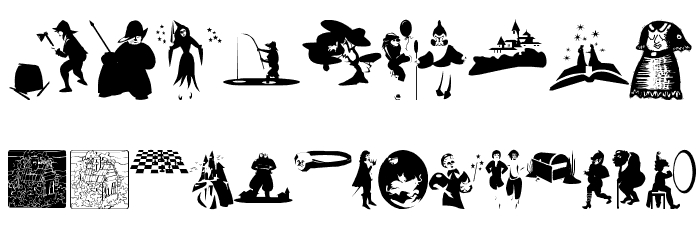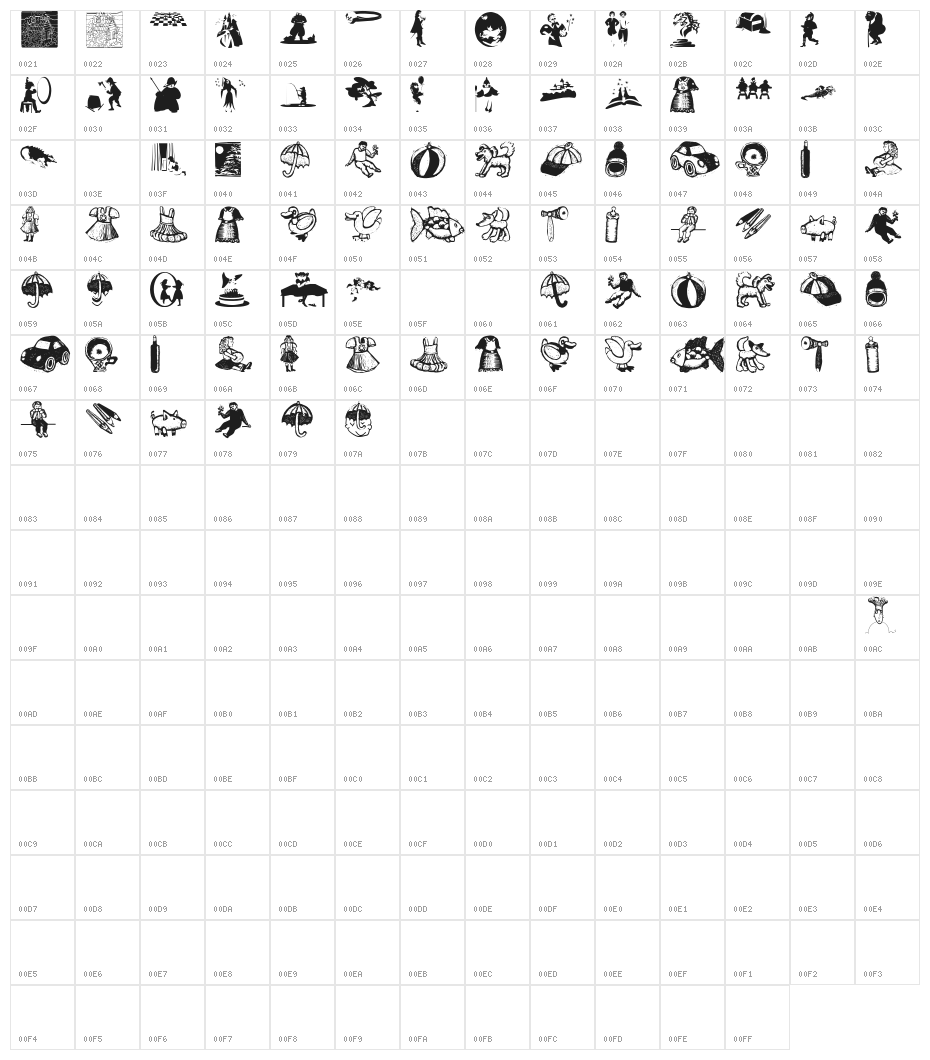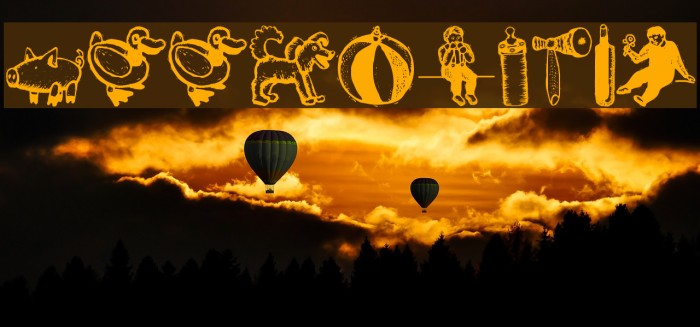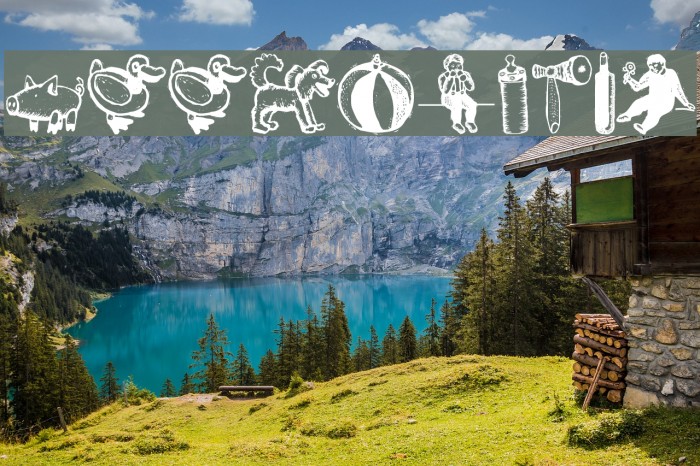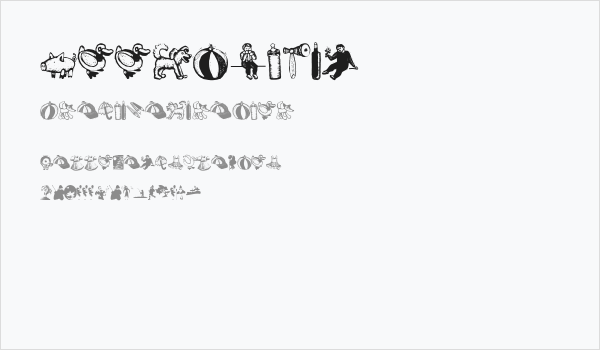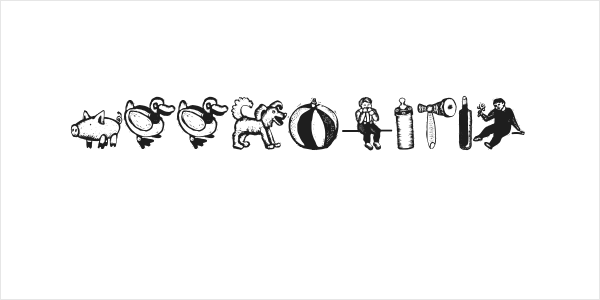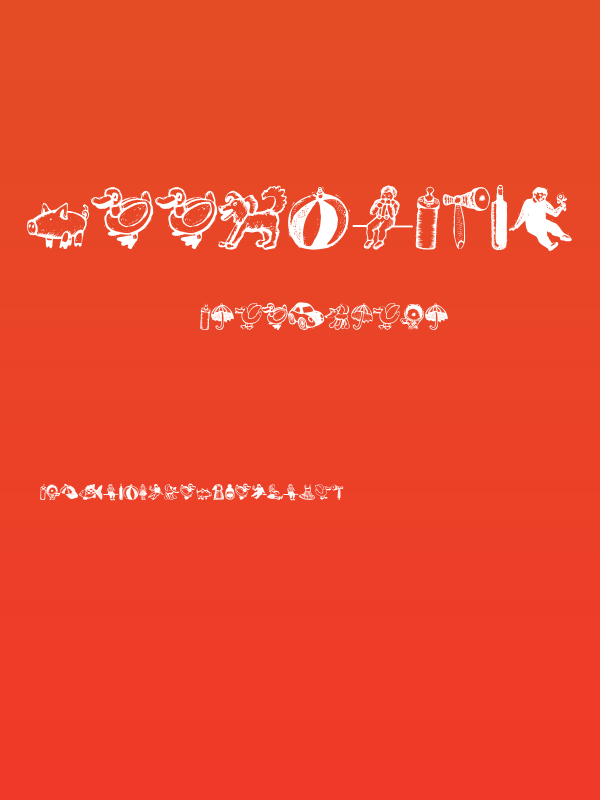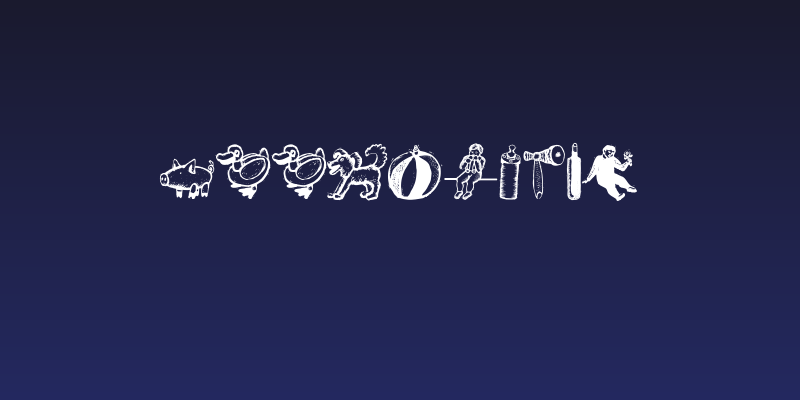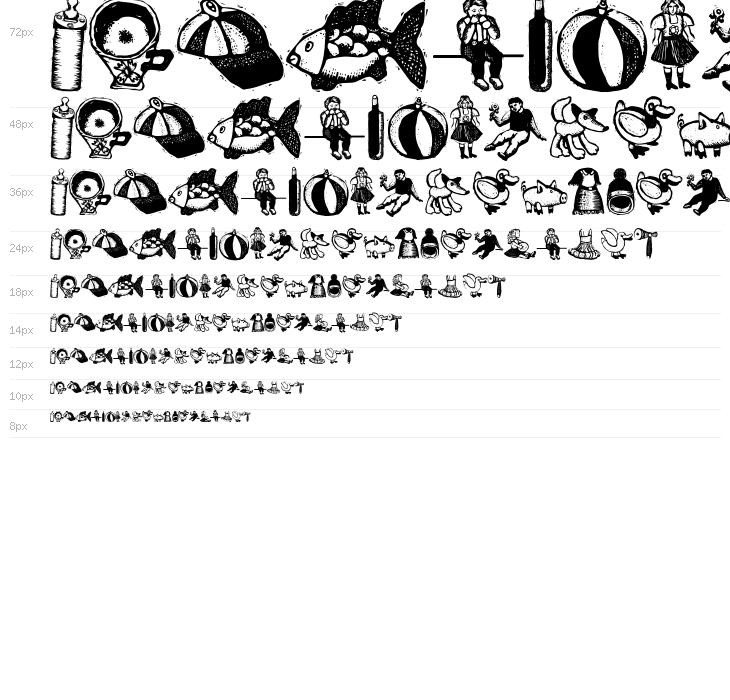
WoodcutSix Font
WoodcutSix Description
A decorative dingbat font featuring a variety of playful, vintage-style woodcut illustrations, including animals, people, objects, and whimsical scenes. Each character is represented by a unique, detailed black-and-white image with a hand-carved, textured appearance.
| Overall Style | Vintage, Decorative |
| Use Case | Illustrative accents, decorative elements, creative projects |
| Proposed Projects | ChildrenΓ’β¬β’s books, invitations, scrapbooking, decorative borders, themed posters, educational materials. |